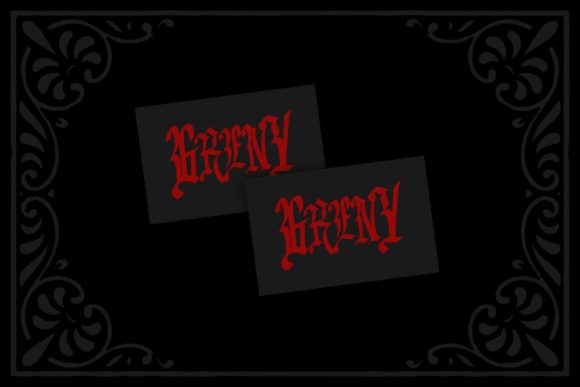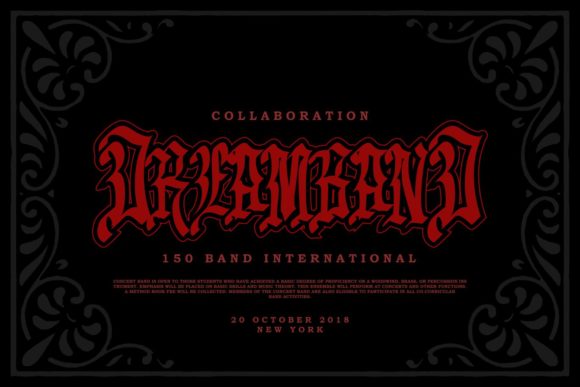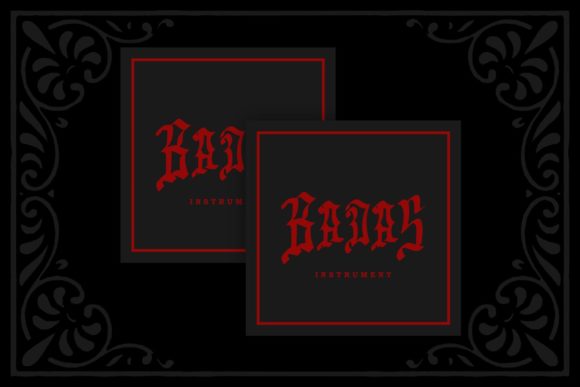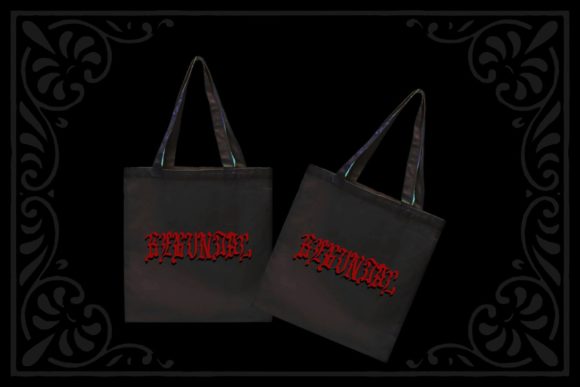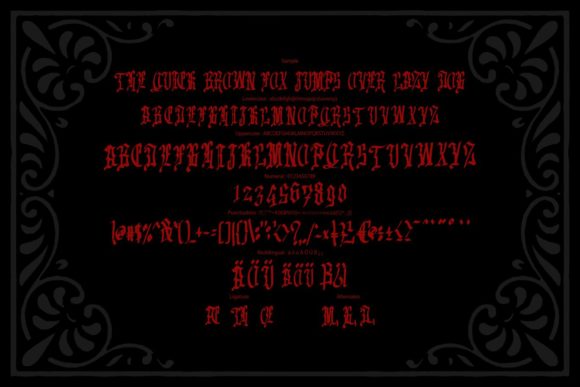
Introducing Emrand Font: The Ultimate Blackletter Typeface for Creative Expression
In the world of typography, few fonts have the power to evoke the same level of drama and uniqueness as Emrand. This stunning blackletter font is designed to make your creative projects stand out from the crowd, and we’re excited to dive into its features, benefits, and uses. Whether you’re a designer, crafter, or simply a typography enthusiast, Emrand is sure to leave a lasting impression.
The Story Behind Emrand
Emrand’s origins are rooted in the rich history of blackletter typography, which dates back to the Middle Ages. Blackletter fonts were originally used for formal documents, such as certificates, diplomas, and official letters. Over time, they’ve evolved to become a staple in various design fields, including calligraphy, lettering, and typography.
Emrand’s creators drew inspiration from traditional blackletter fonts, but with a modern twist. They aimed to craft a typeface that would not only pay homage to its heritage but also push the boundaries of creative expression. The result is a font that’s both dramatic and elegant, perfect for making a statement in your designs.
What Makes Emrand So Unique?
So, what sets Emrand apart from other blackletter fonts? Here are a few key features that make it truly unique:
- Intricate Details: Emrand boasts intricate details, including ornate flourishes and delicate swashes. These elements add a level of sophistication and refinement to your designs.
- High Contrast: The font’s high contrast between thick and thin strokes creates a sense of drama and visual interest. This makes it perfect for headlines, titles, and other attention-grabbing applications.
- Modern Twist: Emrand’s modern twist on traditional blackletter typography makes it versatile and adaptable. You can use it in a variety of contexts, from vintage-inspired designs to modern, minimalist projects.
Using Emrand in Your Designs
Emrand is an incredibly versatile font that can be used in a wide range of creative projects. Here are some ideas to get you started:
- Logos and Branding: Emrand’s unique blend of drama and elegance makes it perfect for logos, branding, and identity design.
- Posters and Flyers: Use Emrand to create eye-catching posters, flyers, and brochures that demand attention.
- Wedding and Event Design: Emrand’s elegant, sophisticated feel makes it ideal for wedding invitations, event branding, and other formal designs.
- Packaging and Product Design: Add a touch of drama and whimsy to your packaging and product designs with Emrand.
Tips for Working with Emrand
To get the most out of Emrand, here are a few tips to keep in mind:
- Experiment with Sizes: Emrand looks great in a variety of sizes, from small captions to large headlines. Experiment with different sizes to find the perfect fit for your design.
- Play with Colors: Emrand’s high contrast and intricate details make it perfect for use with a range of colors. Try pairing it with bold, bright colors or subtle, muted tones.
- Mix and Match: Don’t be afraid to mix and match Emrand with other fonts to create a unique, layered look.
Emrand is a game-changing blackletter font that’s sure to elevate your creative projects to new heights. With its intricate details, high contrast, and modern twist, it’s the perfect choice for designers, crafters, and typography enthusiasts alike. Whether you’re looking to create a dramatic logo, eye-catching poster, or elegant wedding invitation, Emrand is the ultimate typeface for making a statement.